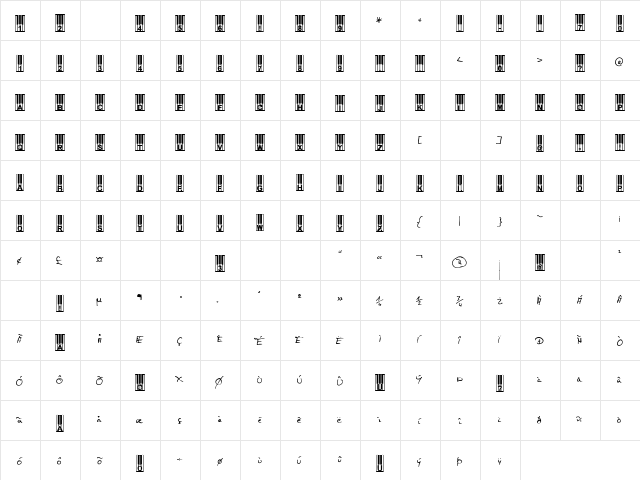
WilliesPianoTuned Regular
Design Context for WilliesPianoTuned Typeface
WilliesPianoTuned is a composed and adaptable typeface that performs quietly and consistently across a wide range of design contexts.